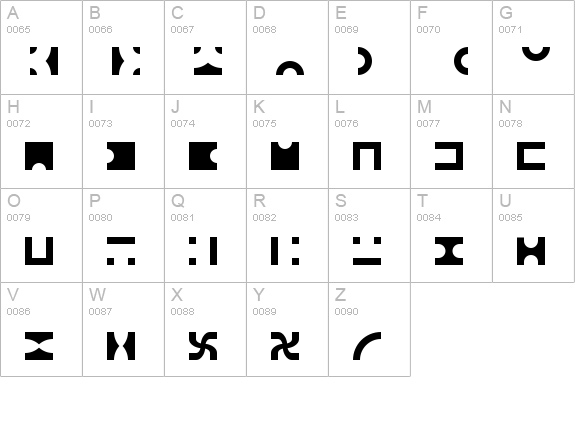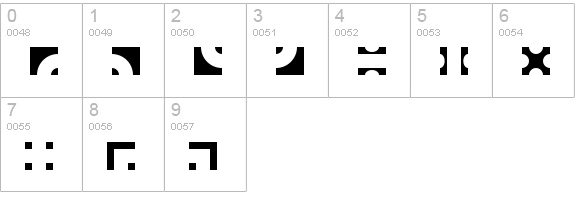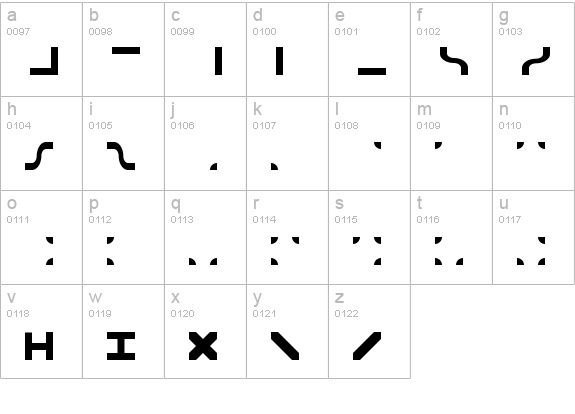
Bit Blocks TTF BRK font is a modern and stylish typeface that exudes a digital and futuristic vibe. With its blocky and angular design, this font is perfect for adding a tech-savvy touch to your projects. The sharp edges and bold lines make it stand out, making it ideal for headlines, logos, and other design elements that require a strong visual impact. What's even better is that Bit Blocks TTF BRK font is available for free download at FontsMarket.com. This means you can easily access this versatile font and use it in your personal and commercial projects without any cost. Whether you're a designer looking to add a contemporary flair to your work or a hobbyist wanting to experiment with different fonts, Bit Blocks TTF BRK font is a great choice that won't break the bank. Download it today and elevate your designs with this eye-catching typeface.